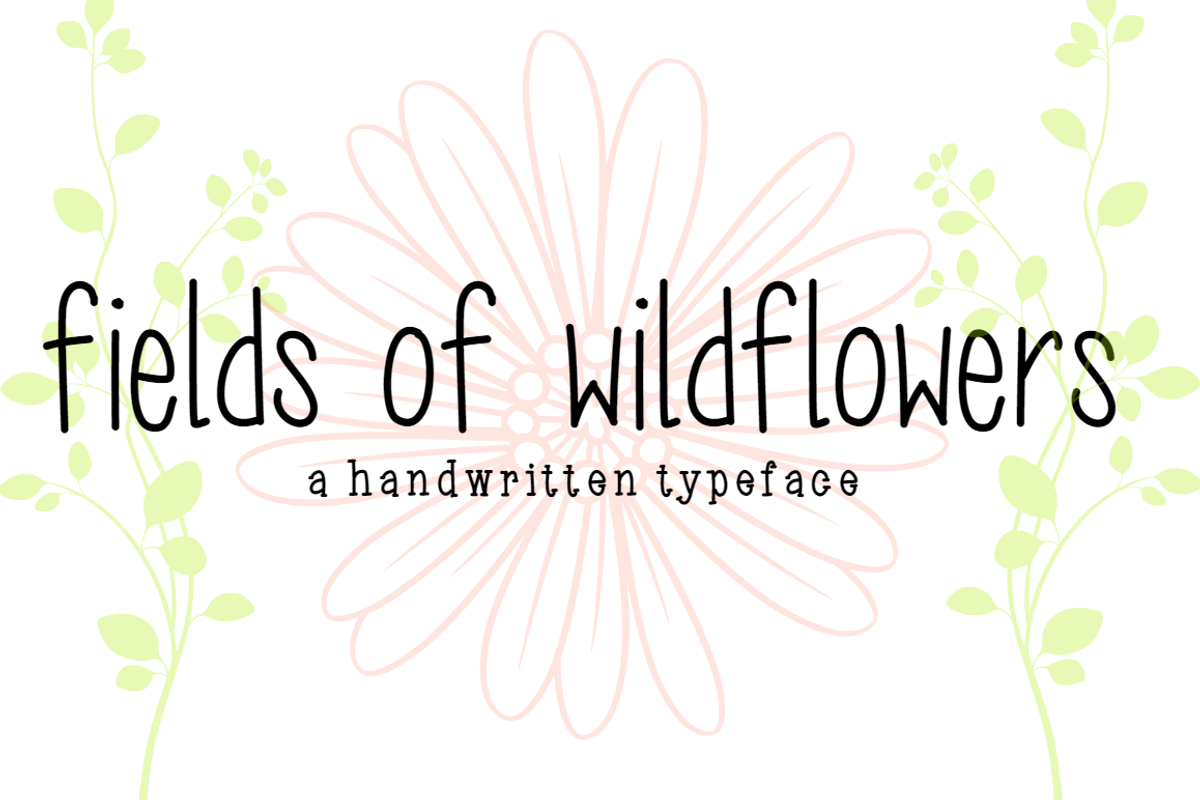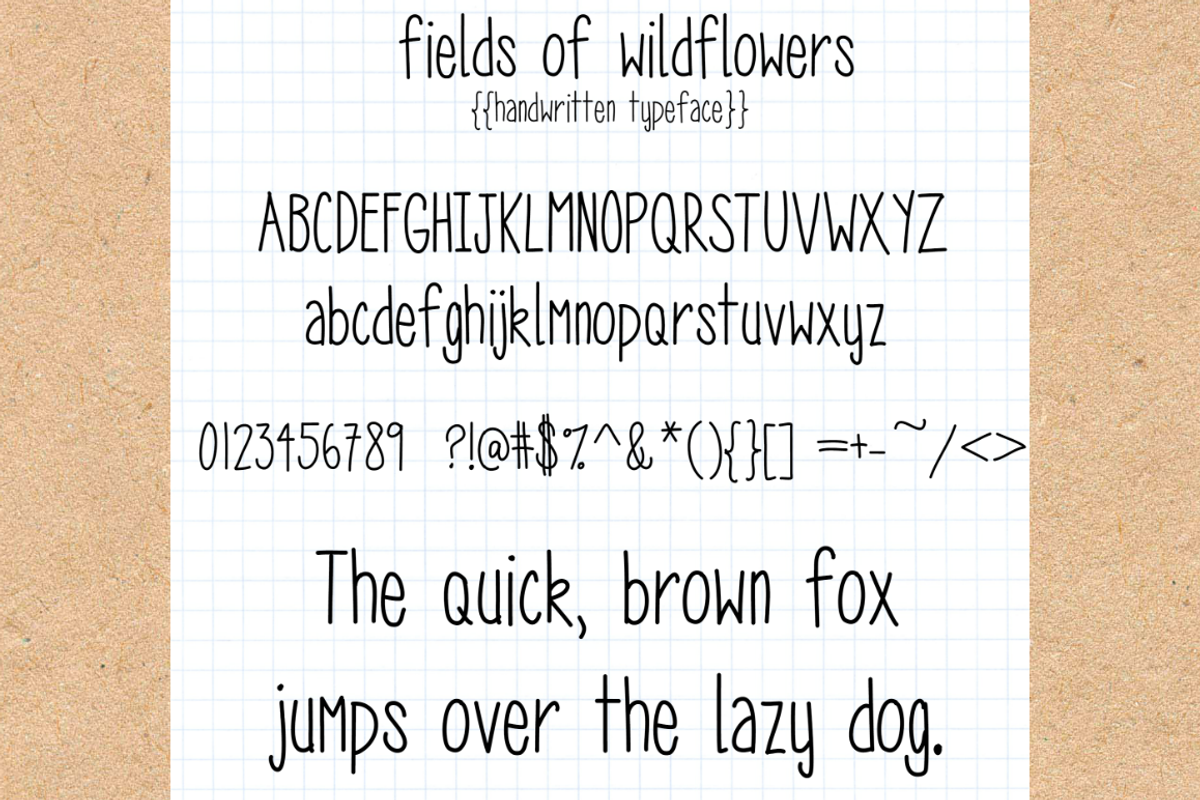
fields of wildflowers- hand font
fields of wildflowers- hand font by Sabrina Schleiger Design is a font selected for branding, posters, packaging, typography.
Why fields of wildflowers- hand font is worth a look
fields of wildflowers- hand font by Sabrina Schleiger Design fits naturally into Branding, posters, packaging, typography.